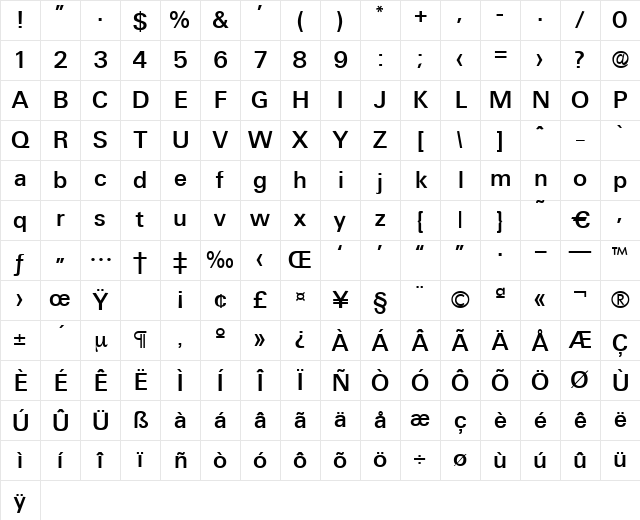
Ultimate-Medium Regular
Design Context for Ultimate-Medium
Ultimate-Medium is a composed and adaptable typeface that performs quietly and consistently across a wide range of design contexts.